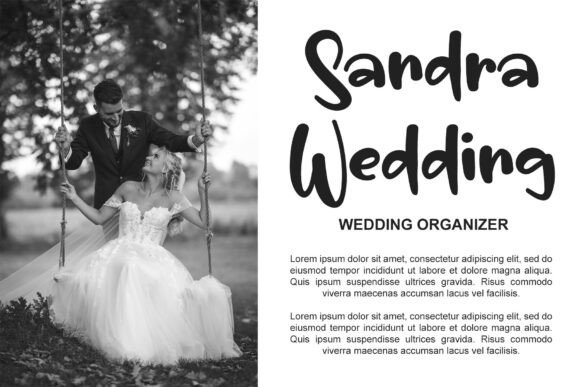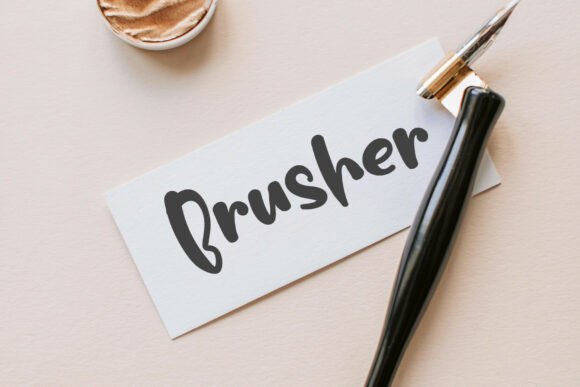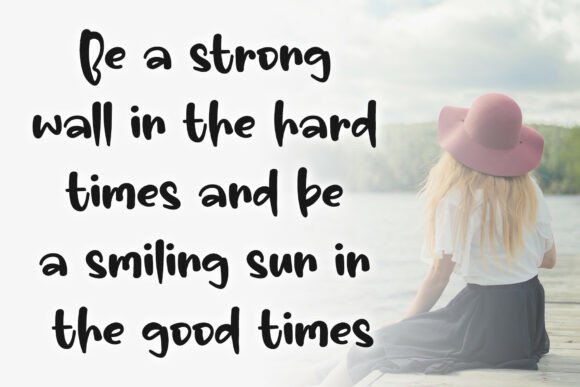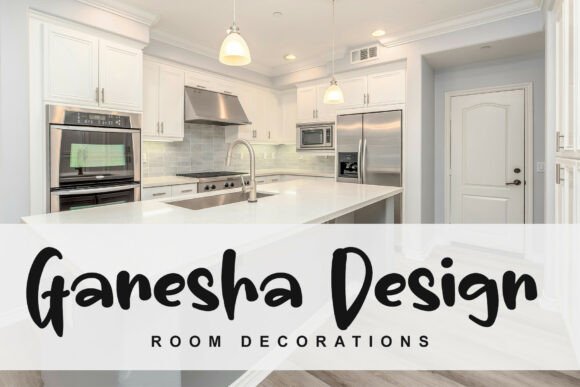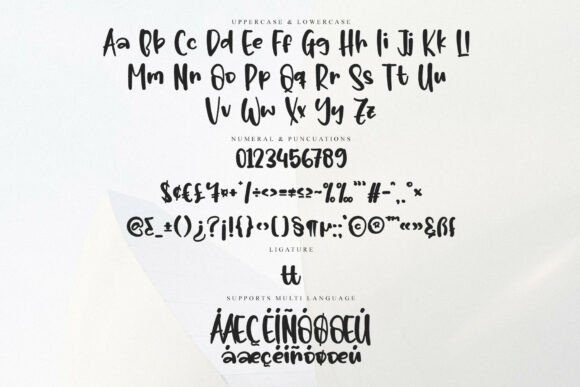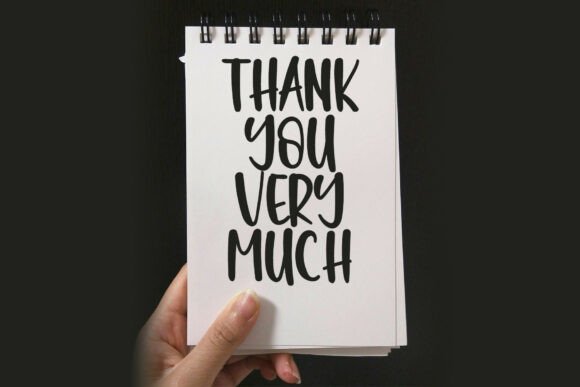
Introducing Beside Farmhouse Font: A Modern Rustic Typographic Marvel
In the realm of typography, few fonts manage to capture the essence of rustic charm and modern sophistication as effectively as Beside Farmhouse. This bold font is a game-changer for designers and crafters seeking to infuse their projects with a unique, hand-lettered aesthetic. With its massive, blocky letterforms and distinctive personality, Beside Farmhouse is poised to revolutionize the way you approach branding, marketing, and design.
The Characteristics of Beside Farmhouse Font
Beside Farmhouse boasts a range of characteristics that set it apart from other fonts. Its thick, consistent strokes and stable vertical axis lend a sense of solidity and dependability, while its soft, organic terminals and unique character shifts inject a touch of warmth and humanity. This carefully crafted balance of modern and rustic elements results in a font that feels both contemporary and timeless.
Key Features of Beside Farmhouse
- Massive, blocky letterforms: The font’s bold, chunky letterforms make it perfect for headlines, titles, and other display text.
- Thick, consistent strokes: The font’s strokes are sturdy and dependable, giving it a sense of solidity and weight.
- Soft, organic terminals: The font’s terminals are gently rounded, adding a touch of warmth and friendliness to the overall design.
- Unique character shifts: The font’s characters have a subtle, hand-penned feel, giving it a distinctive personality.
Perfect for Rustic Home Decor Branding and More
Beside Farmhouse is an exceptional asset for a wide range of design applications, including:
- Rustic home decor branding: The font’s rustic charm and modern sophistication make it perfect for branding and packaging design in the home decor industry.
- Farm-to-table marketing: The font’s earthy, natural feel makes it a great fit for marketing and advertising campaigns in the food and beverage industry.
- Impactful logo design: The font’s bold, chunky letterforms make it perfect for creating eye-catching logos and signage.
- Creative lifestyle headers: The font’s unique personality and hand-penned feel make it a great choice for headers and titles in lifestyle and wellness branding.
- Unique personality: Beside Farmhouse has a distinctive personality that sets it apart from other fonts.
- Versatility: The font is suitable for a wide range of design applications, from branding and marketing to logo design and headers.
- Easy to read: Despite its bold, chunky letterforms, Beside Farmhouse is surprisingly easy to read, even at smaller sizes.